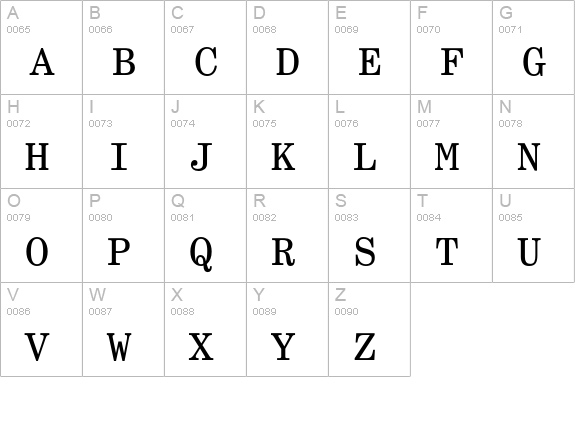
Century Schoolbook Monospace is a classic monospaced font that combines the timeless elegance of Century Schoolbook with the simplicity and functionality of a monospaced typeface. This font is perfect for creating a clean and organized look in your documents or designs, while maintaining a touch of sophistication. The uniform width of each character in Century Schoolbook Monospace ensures that your text lines up neatly, making it ideal for coding, data tables, or any other application where alignment is important. The clear and easy-to-read letterforms make this font versatile for both display and text use. Best of all, Century Schoolbook Monospace is available for free download at FontsMarket.com, allowing you to easily incorporate this stylish and practical typeface into your projects without breaking the bank. Upgrade your typography game with Century Schoolbook Monospace today!